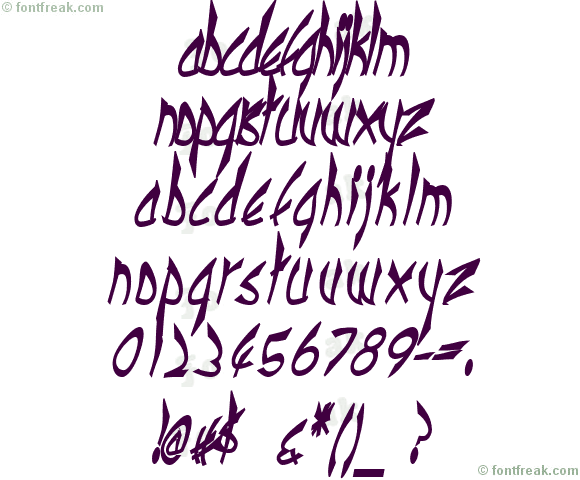
cbe Bold Italic
About cbe Bold Italic
The cbe Bold Italic font, designed by Peter Wiegel, is a distinctive display typeface that beautifully combines boldness with an italicized flair. This font falls into the category of decorative fonts, making it an excellent choice for projects that require a touch of personality and uniqueness. The visual characteristics of cbe Bold Italic include a pronounced stroke weight that ensures visibility, combined with a slight contrast that adds elegance. The italic slant imparts a sense of movement, while the spacing between characters is thoughtfully arranged to maintain readability even at larger sizes.
Due to its striking aesthetic, the cbe Bold Italic font is ideal for a variety of use cases. It works wonderfully for wedding invitations, where a romantic and artistic touch is desired. Its dynamic style also makes it suitable for movie posters, capturing attention and conveying a sense of excitement. Restaurant menus can benefit from this font, adding a creative flair that reflects the establishment's personality. Additionally, it can be utilized in branding materials for small businesses looking to stand out in a competitive market.
What sets the cbe Bold Italic font apart is its ability to blend artistic expression with practical functionality. Its memorable style captures attention while ensuring that the text remains legible, making it a versatile choice for anyone looking to enhance their design projects with a bold and italicized touch.
Author Peter Wiegel